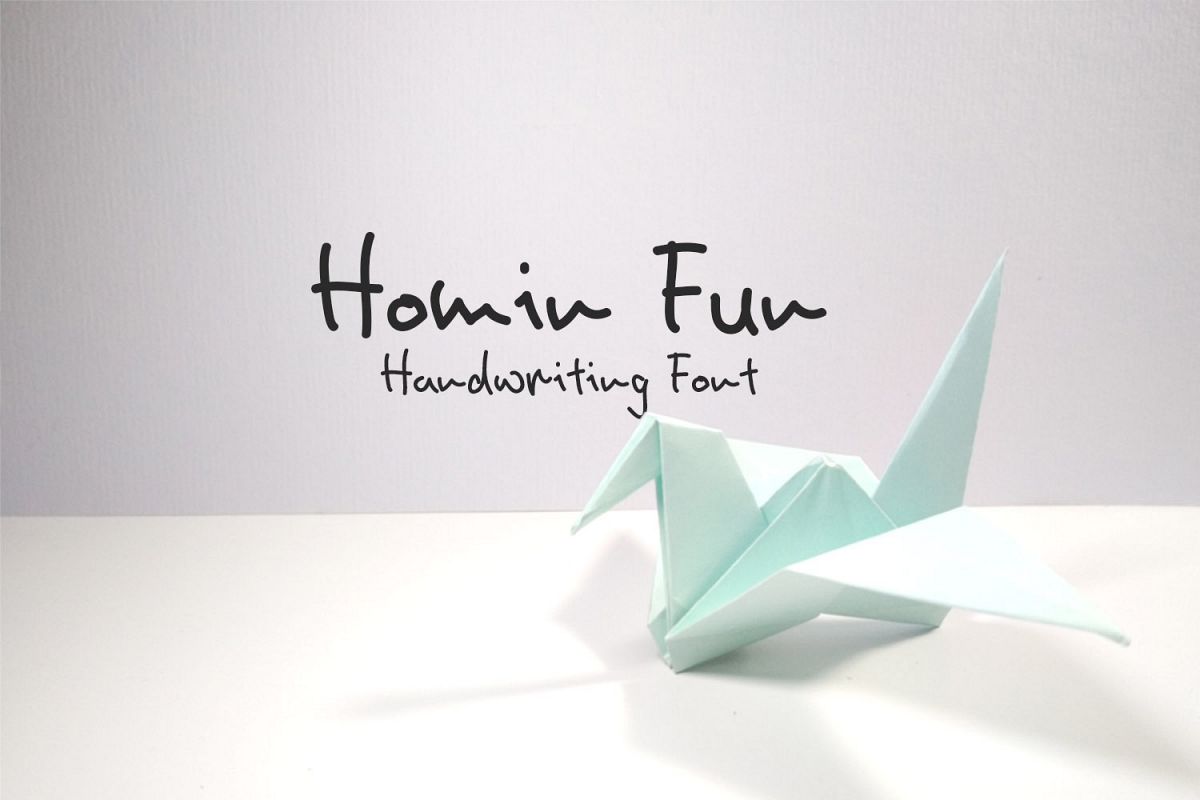
HominFun Handwriting Font
Homin Fun is Handwritten Font – Perfect for Journals & Casual Designs.
Say goodbye to messy handwriting! Our Handmade Written Font is your solution for a clean, consistent handwritten style.
Ideal for journaling, note-taking, casual invitations, or branding.
• Uppercase & lowercase letters
• Numbers & special symbols
• Clean, non-cursive style
Perfect for those who love a original-touch on your Design and Journal.
Handwriting font with mono stroke applied to make it elegance for display use. This font can be used for short sentences, printing use, quotes, or anything you want to use.
This font's coming with International Character set.